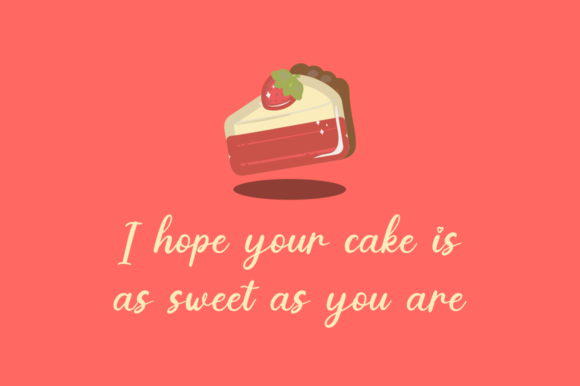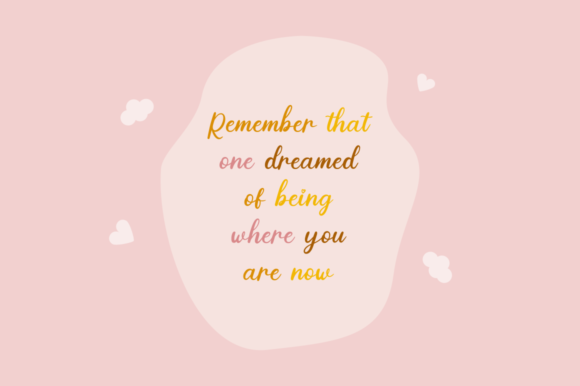
Lovely Magnolia Font
db-ku.com - Script & Handwritten -- Lovely Magnolia font is a font inspired by the love that blooms in spring, made with real handwriting, and looks very girly and beautiful.